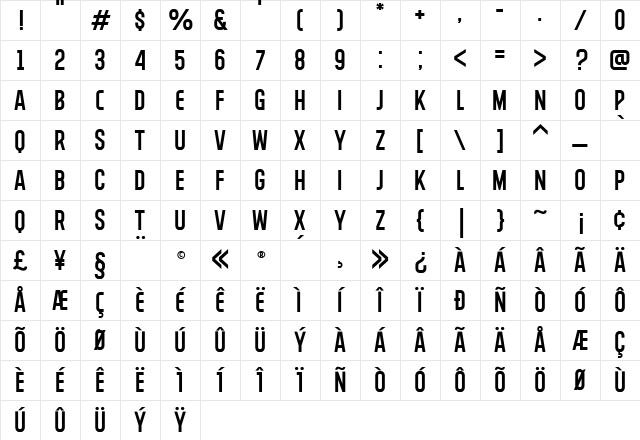
BROOKLINE Condensed Free Font
BROOKLINE Condensed
Foundry: Hendra Pratama
Designer: Hendra Pratama
Design Context for BROOKLINE
BROOKLINE is a composed and adaptable typeface that performs quietly and consistently across a wide range of design contexts. Its narrow stance lets it pack a punch even in space-constrained designs.